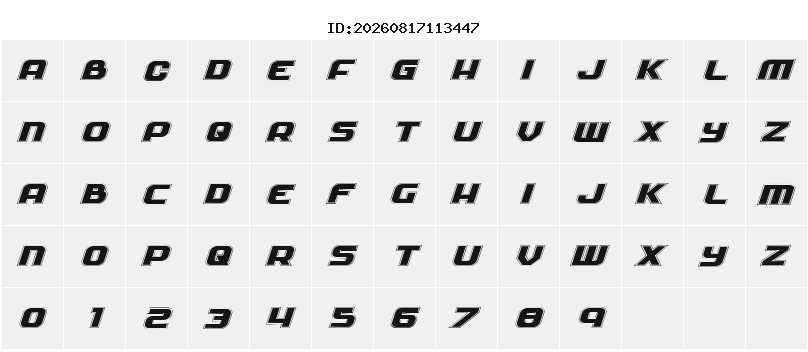
• Font Name: Soldier Academy Expanded Italic
• Font Style: Expanded Italic
• Full Font Name: Soldier Academy Expanded Italic
About Soldier Academy Expanded Italic.ttf
Soldier Academy Expanded Italic.ttf is a modern, elegant sans-serif font designed for ultimate readability and visual harmony. Perfect for branding, headlines, web design, and print materials.